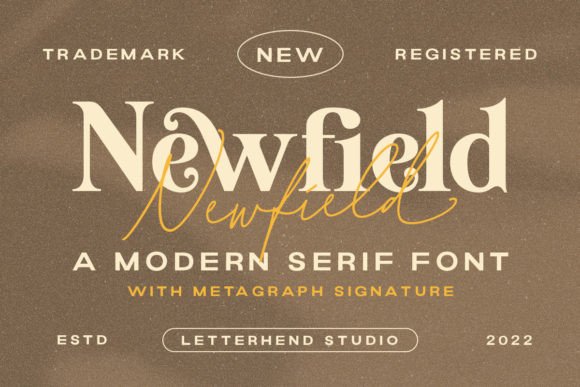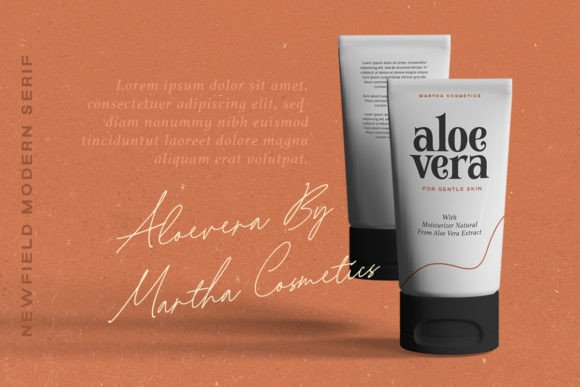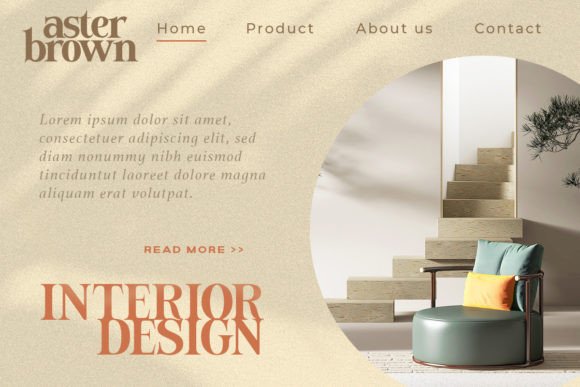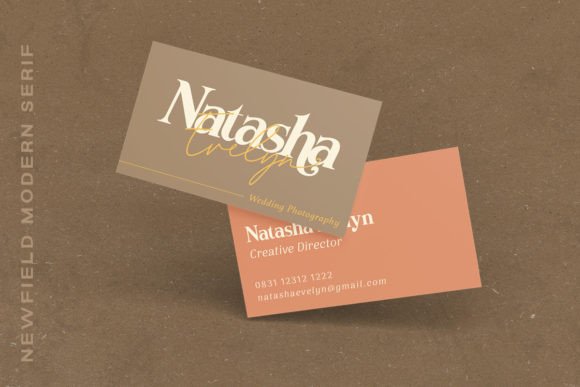
Newfield Font
Newfield is a sophisticated and stylish serif font, designed with clean lines and elegant curves. Perfect for creating high-end designs, this modern font adds a touch of class to any project with its timeless charm.